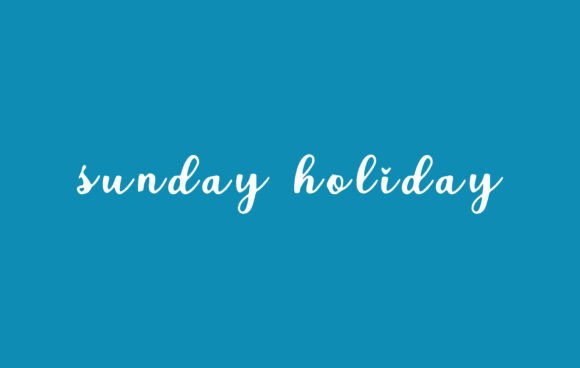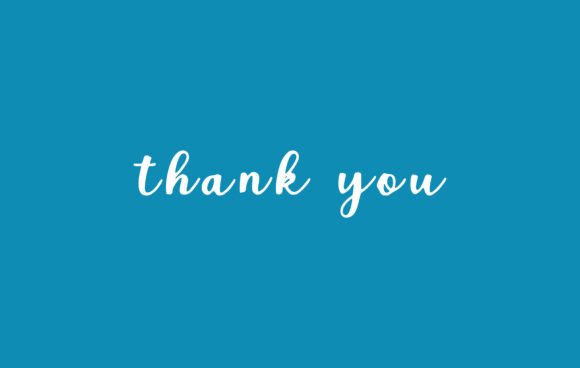
Evoscript Font: Elevate Your Designs with a Romantic Touch
Are you tired of using the same old fonts in your designs? Look no further than Evoscript, an authentic handwritten font with a romantic touch that’s sure to take your creative ideas to the next level. In this article, we’ll dive into the features and benefits of Evoscript, and explore how it can be used to elevate your designs.
What is Evoscript Font?
EvoScript font is a beautifully crafted handwritten font that’s designed to add a touch of elegance and sophistication to your designs. With its romantic and whimsical feel, Evoscript is perfect for designers and crafters who want to add a personal touch to their work. Whether you’re creating a wedding invitation, social media graphic, or magazine headline, Evoscript is the perfect choice.
Key Features of Evoscript Font
- Authentic Handwritten Style: Evoscript is an authentic handwritten font that’s been expertly designed to mimic the look and feel of handwritten script.
- Romantic Touch: With its flowing curves and elegant lines, Evoscript adds a romantic touch to any design.
- Legible and Versatile: Evoscript is highly legible, making it perfect for use as both title and body text.
- Wide Range of Uses: From magazine headlines to social media graphics, wedding invitations to branding, Evoscript is a versatile font that can be used in a wide range of designs.
Benefits of Using Evoscript Font
So why choose Evoscript for your designs? Here are just a few benefits of using this beautiful font:
- Adds a Personal Touch: With its handwritten style, Evoscript adds a personal touch to your designs that’s sure to resonate with your audience.
- Elevates Your Designs: Evoscript’s romantic and elegant feel is sure to elevate your designs and take them to the next level.
- Perfect for Creative Projects: Whether you’re a designer, crafter, or DIY enthusiast, Evoscript is the perfect font for creative projects that require a personal touch.
How to Use Evoscript Font in Your Designs
So how can you use Evoscript in your designs? Here are a few ideas to get you started:
- Wedding Invitations: Add a romantic touch to your wedding invitations with Evoscript.
- Social Media Graphics: Use Evoscript to create eye-catching social media graphics that stand out from the crowd.
- Magazine Headlines: Add a touch of elegance to your magazine headlines with Evoscript.
- Branding: Use Evoscript to create a unique and memorable brand identity.
Tips for Getting the Most Out of Evoscript Font
Here are a few tips for getting the most out of Evoscript:
- Experiment with Different Sizes and Styles: Don’t be afraid to experiment with different sizes and styles of Evoscript to find the perfect look for your design.
- Pair with Other Fonts: Evoscript pairs well with a wide range of fonts, so don’t be afraid to get creative and try out different combinations.
- Use in Combination with Images: Evoscript looks great in combination with images, so try using it to add a touch of elegance to your graphics.
In conclusion, Evoscript font is a beautiful and versatile font that’s perfect for designers and crafters who want to add a romantic touch to their designs. With its authentic handwritten style, legibility, and wide range of uses, Evoscript is sure to become a favorite in your design arsenal. So why wait? Download Evoscript today and start elevating your designs to the next level!